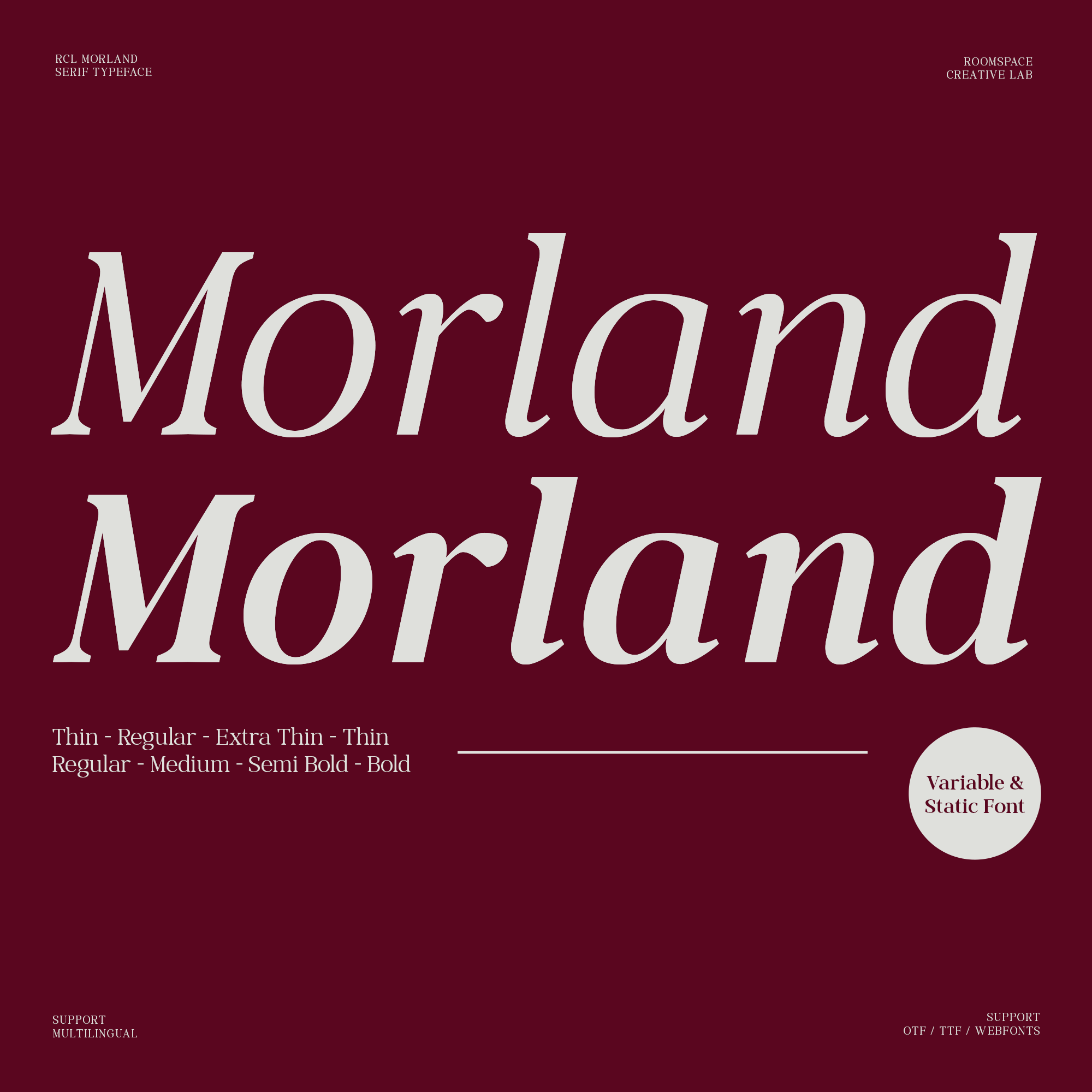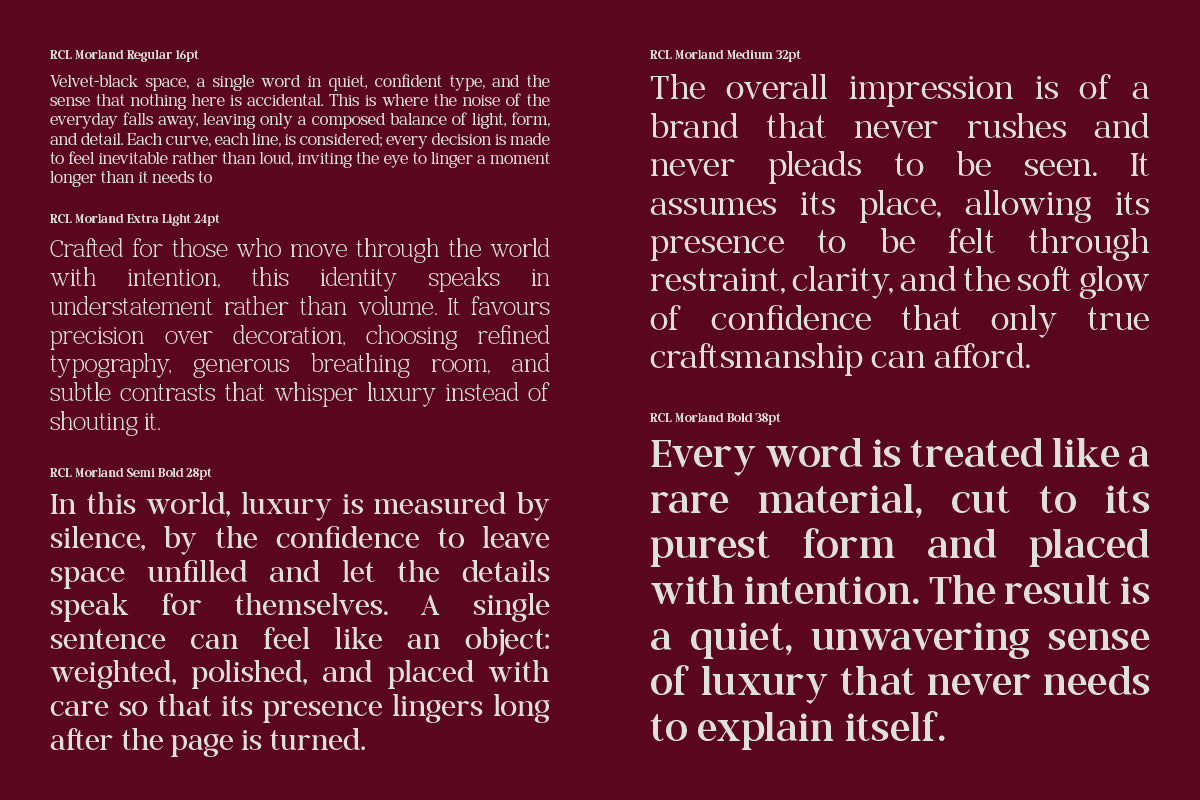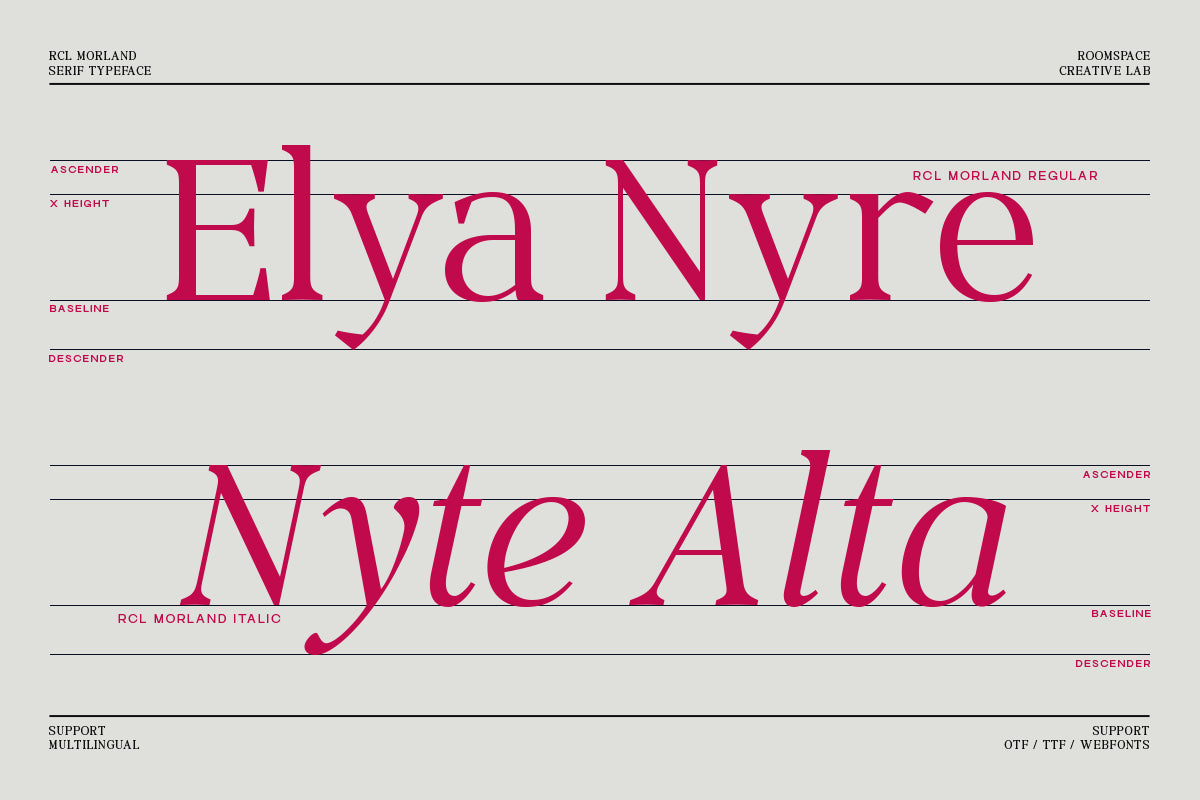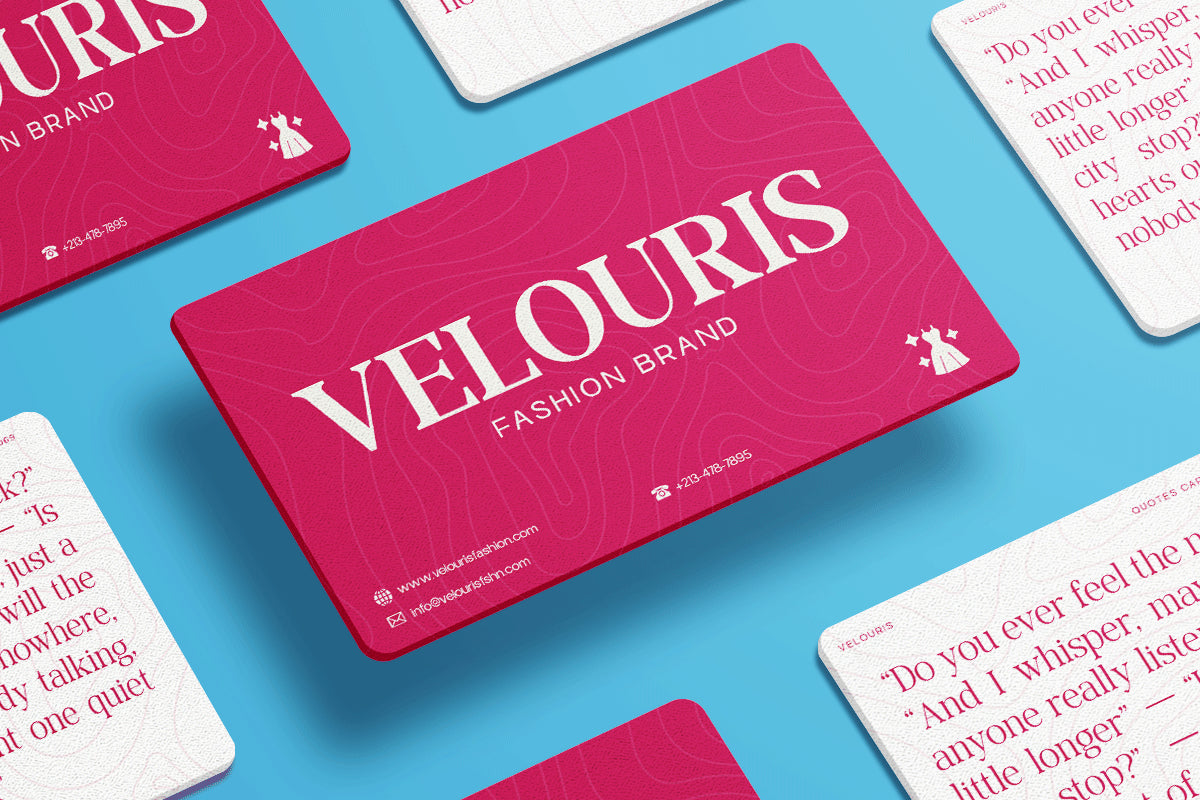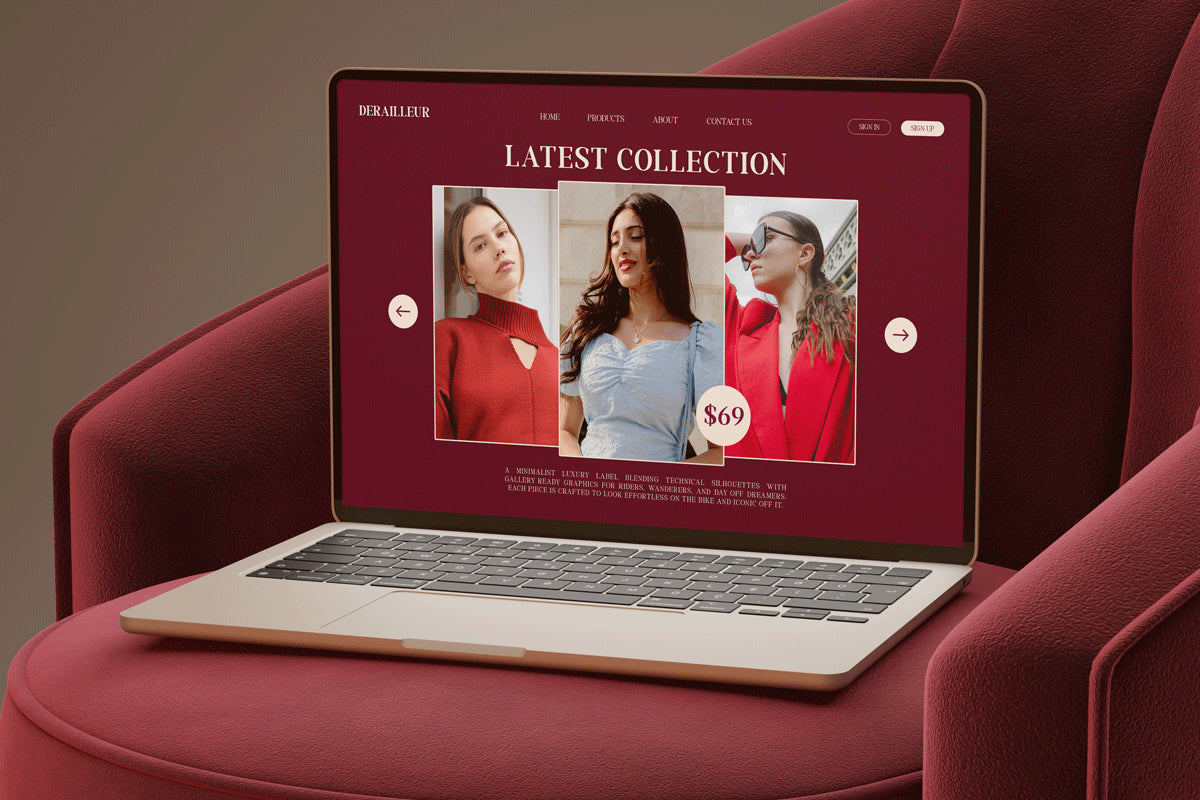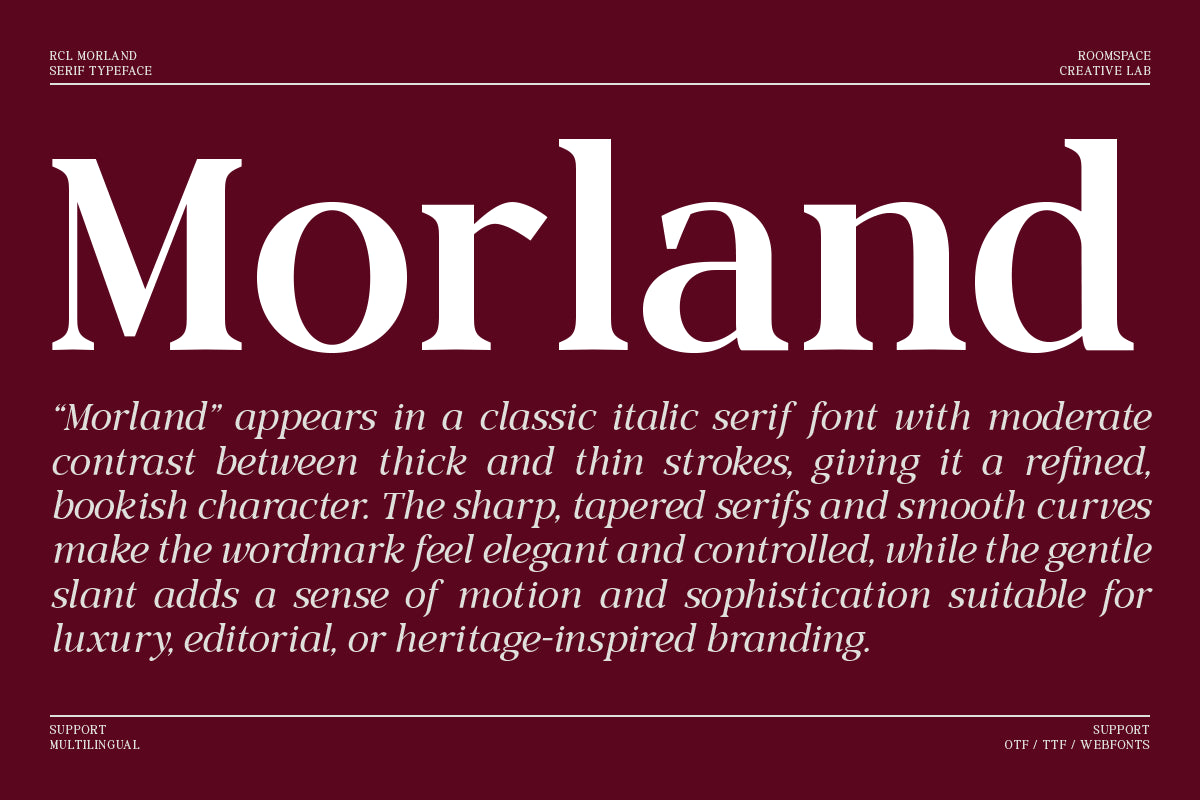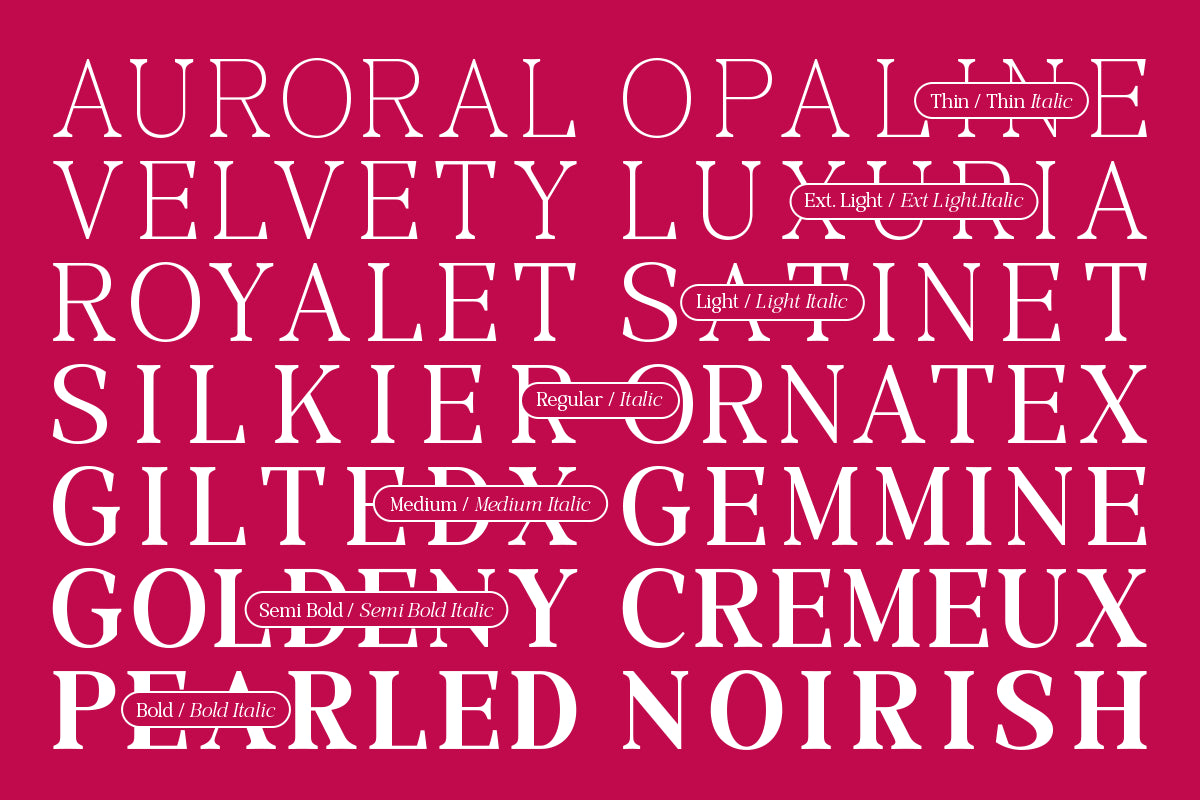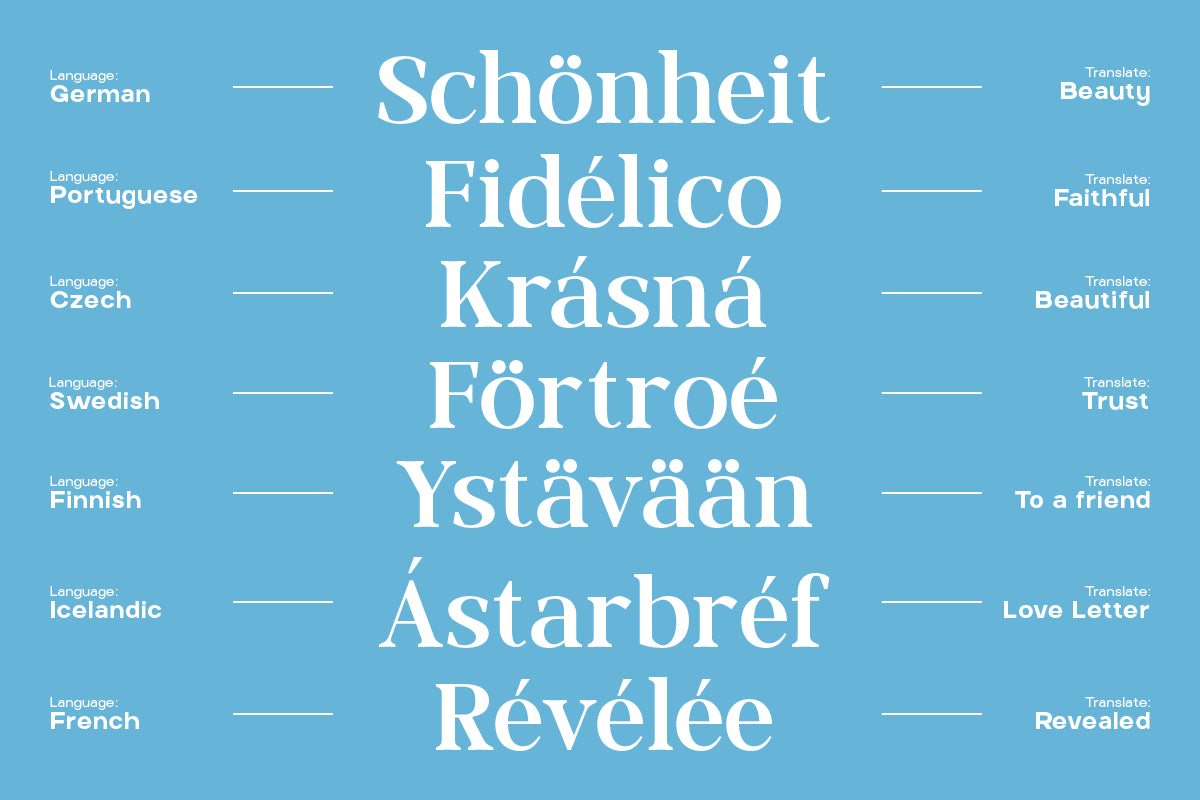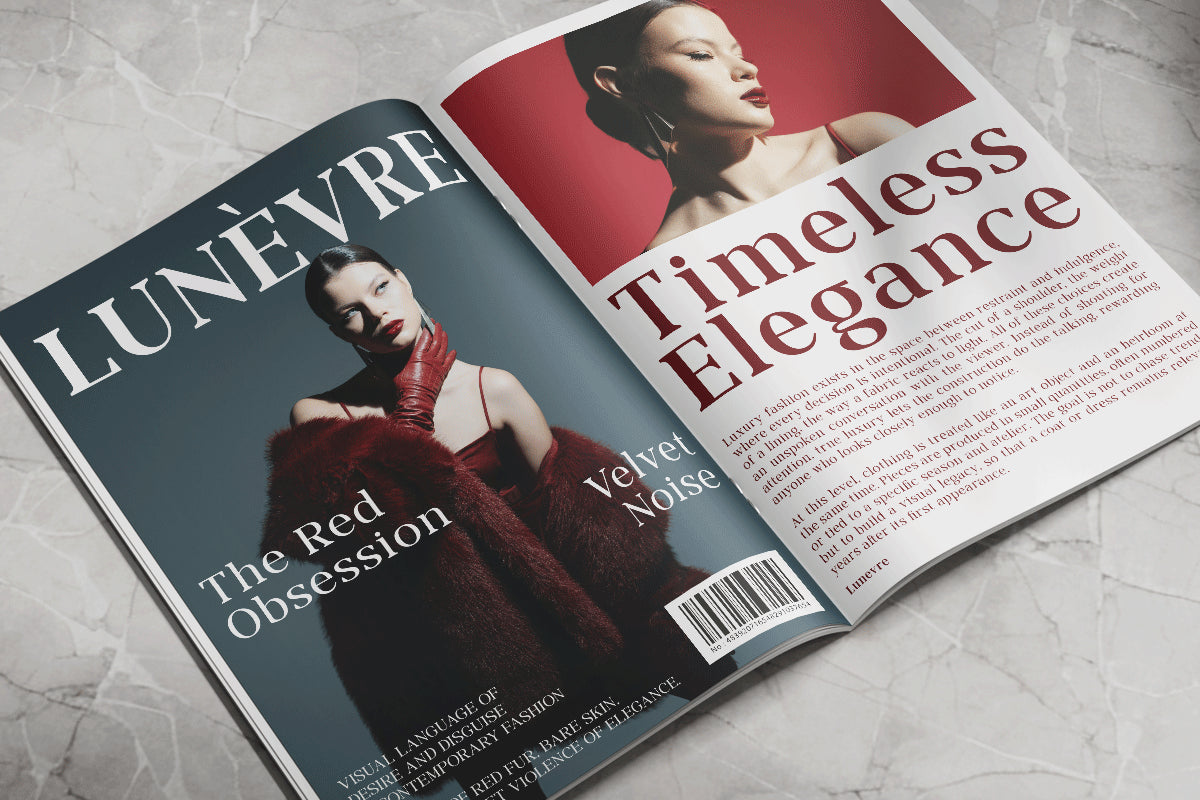
Morland – Modern Elegant Serif Font Family
Morland is a modern serif font family crafted for elegance, clarity, and professional typography. Designed with refined proportions and smooth contrast, Morland delivers a timeless editorial feel suitable for both print and digital design. Featuring multiple weights from Thin to Bold, Morland is perfect for logos, magazines, fashion branding, book covers, websites, and premium visual identities.
• Multiple weights (Thin to Bold)
• Classic modern serif design
• Uppercase & lowercase
• Multilingual support
• Clean kerning & balanced spacing
Perfect For : Editorial design, branding, magazines, fashion, luxury packaging, web design, and print publishing.
Morland is a modern serif font family designed for elegance and clarity, featuring multiple weights from Thin to Bold. It includes uppercase and lowercase letters, multilingual support, and is available in OTF, TTF, and Webfont formats, with clean kerning and balanced spacing.